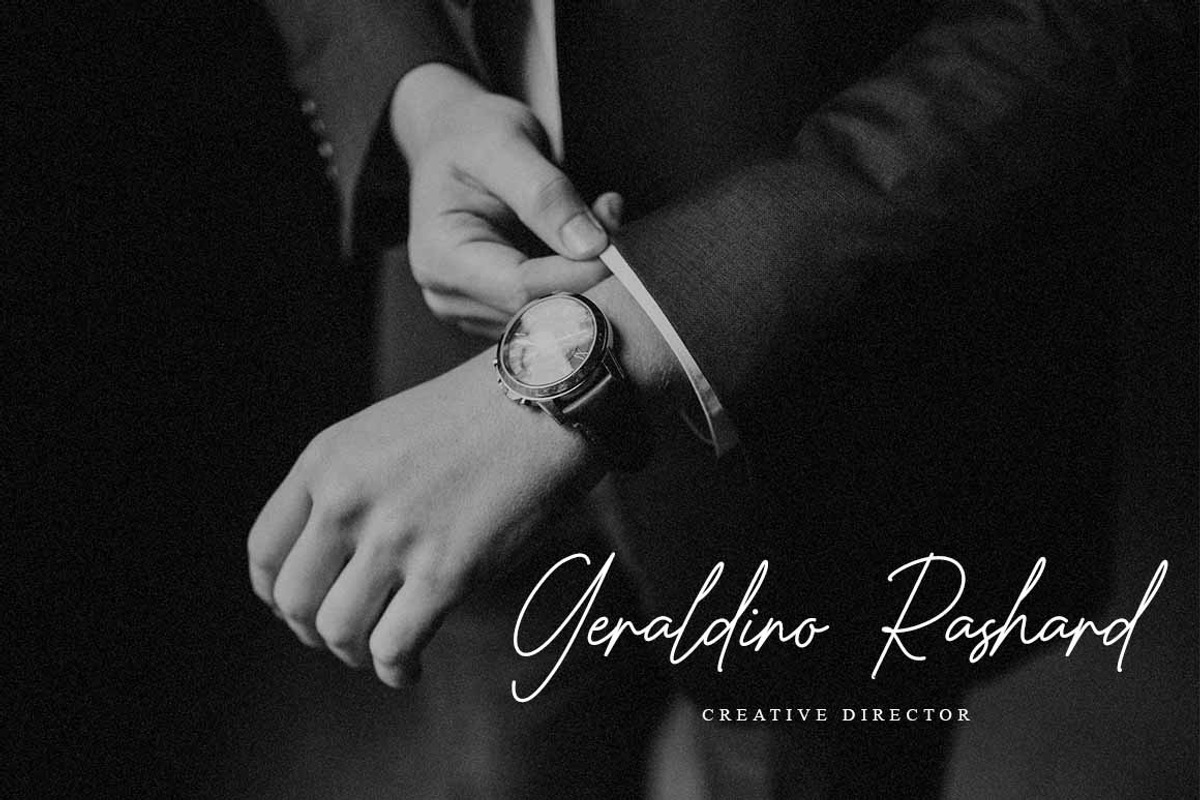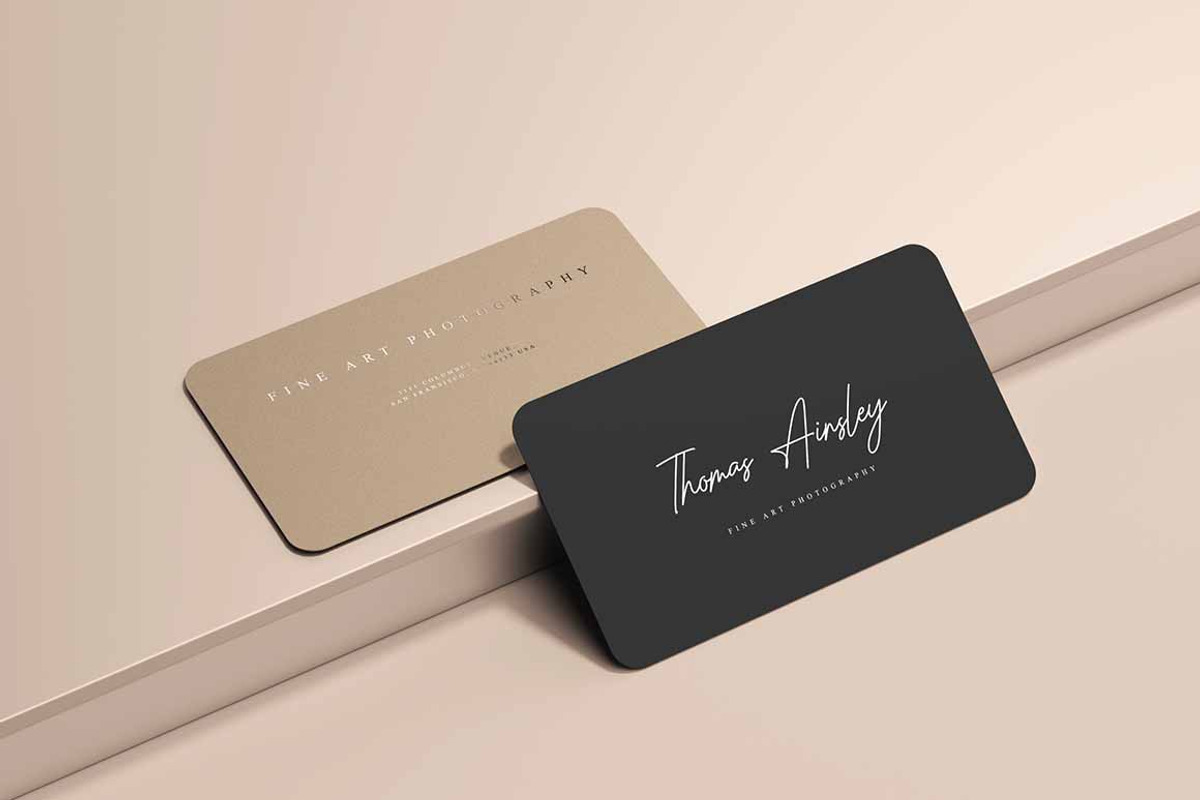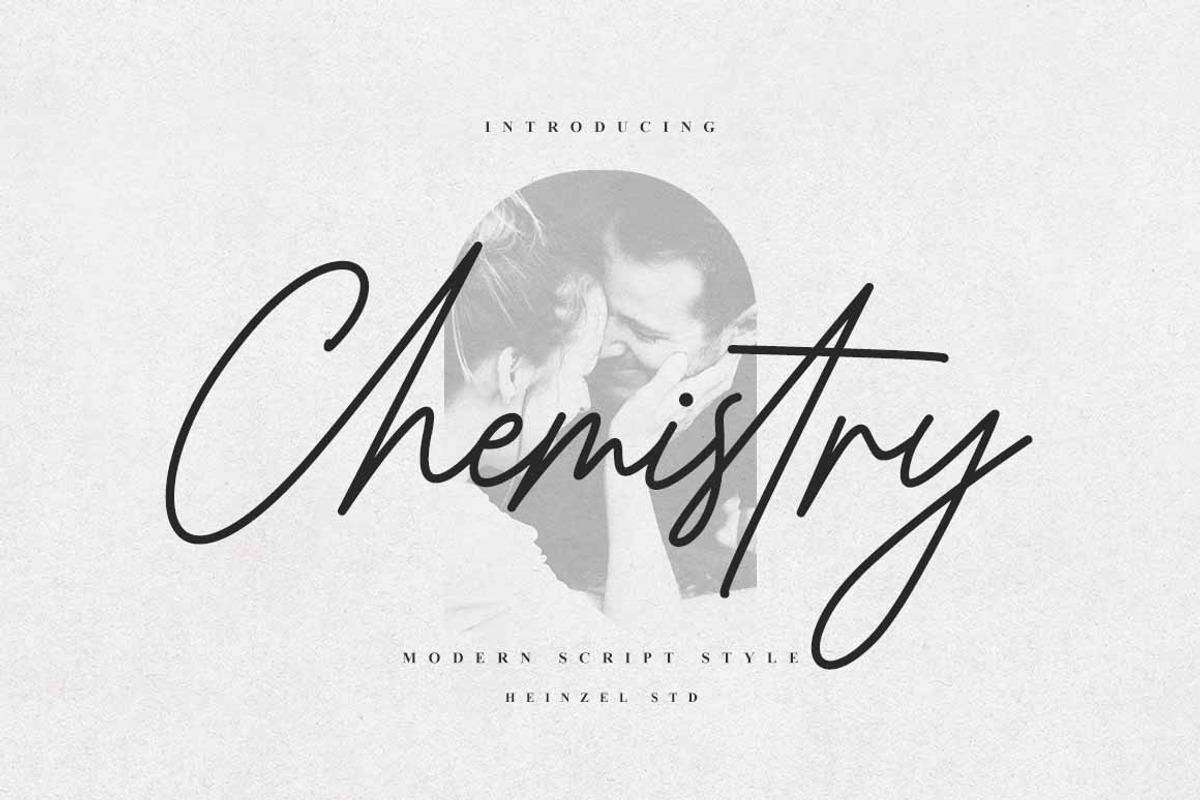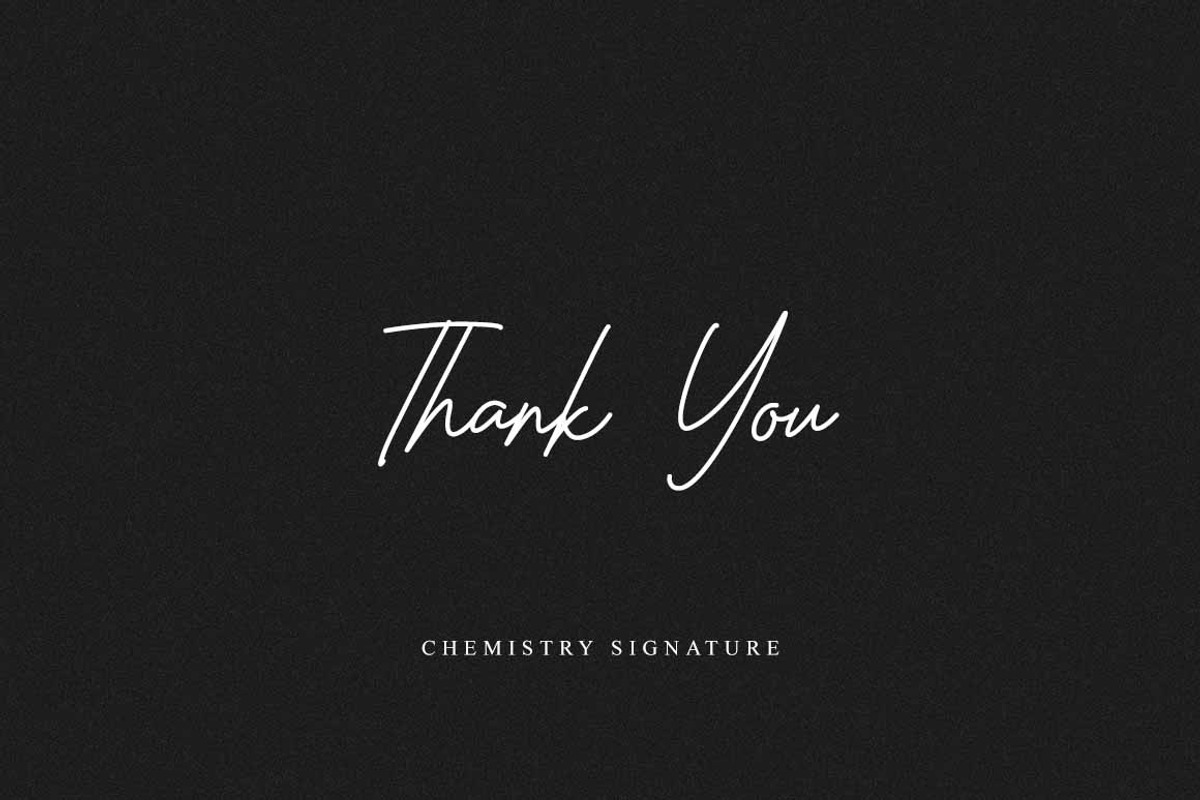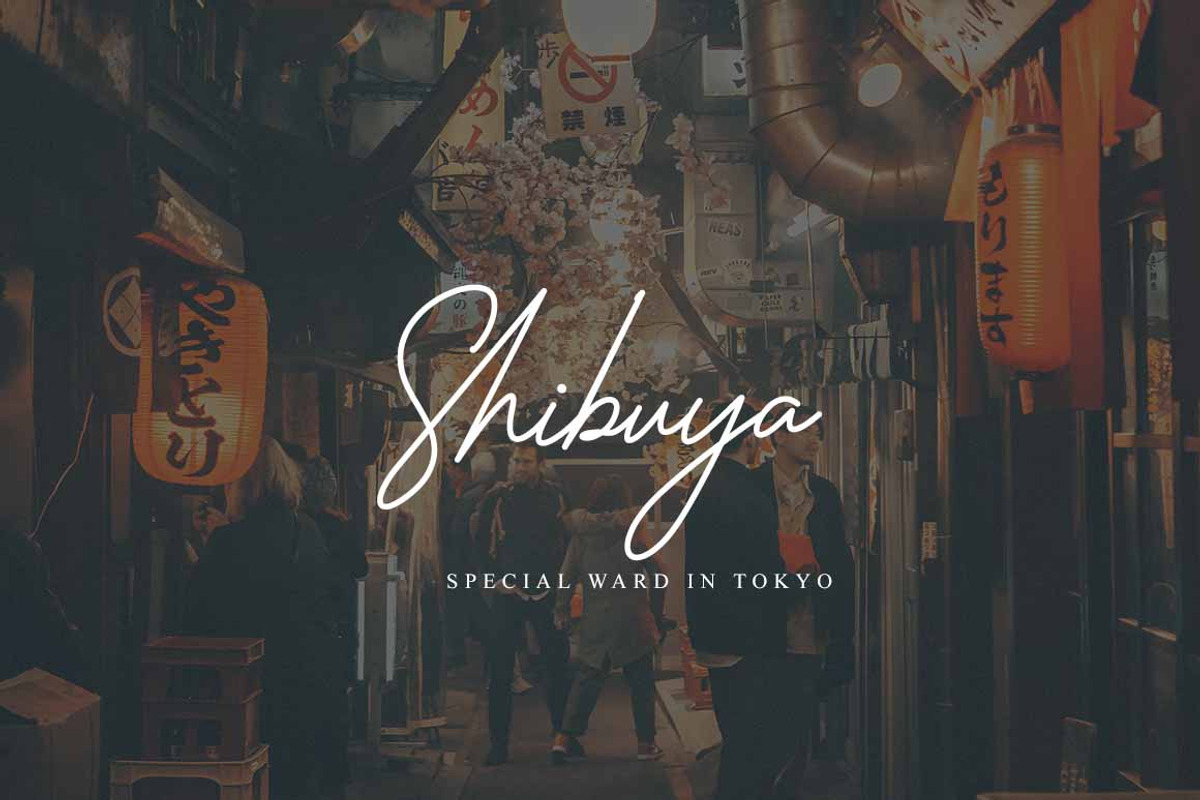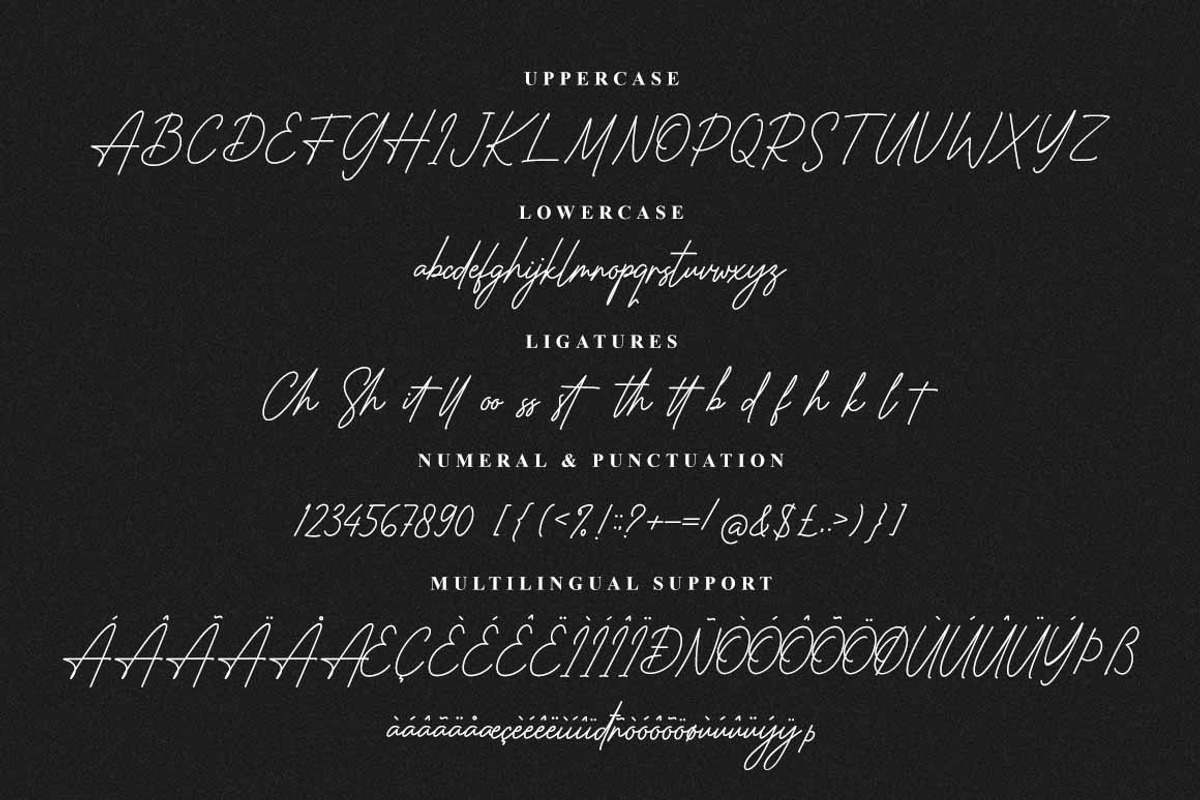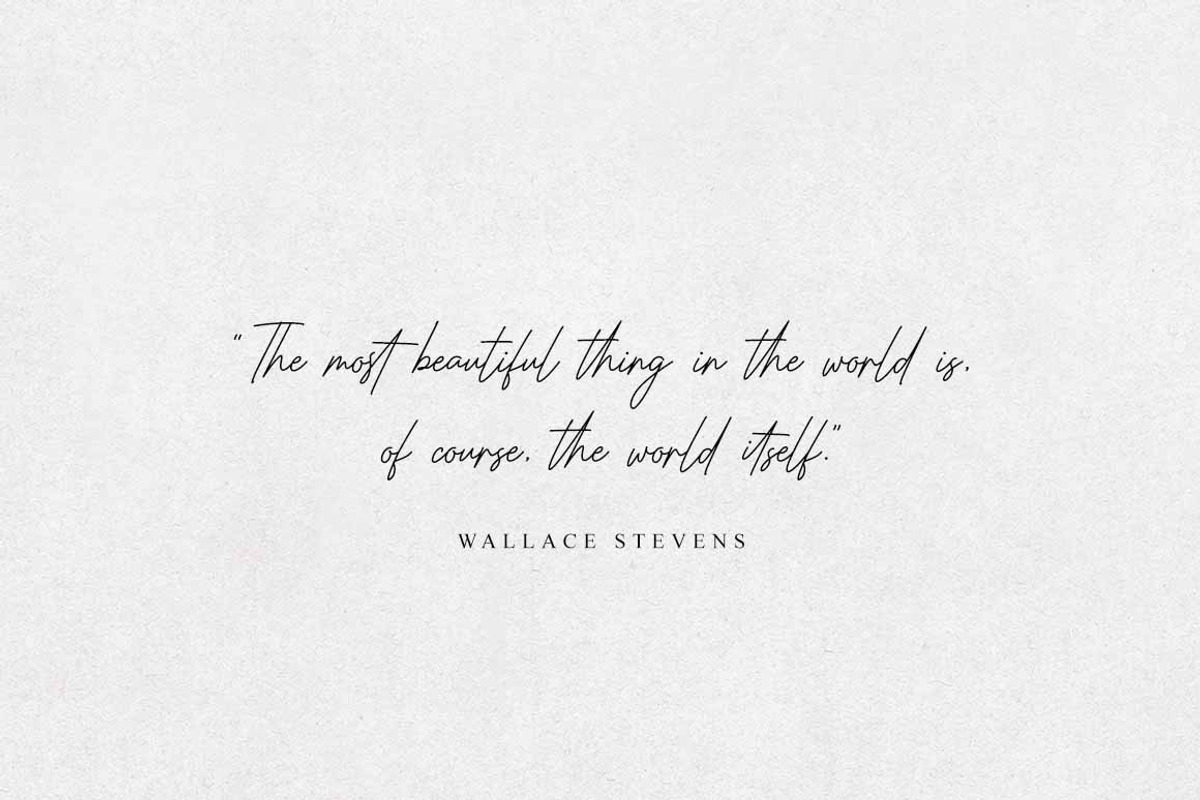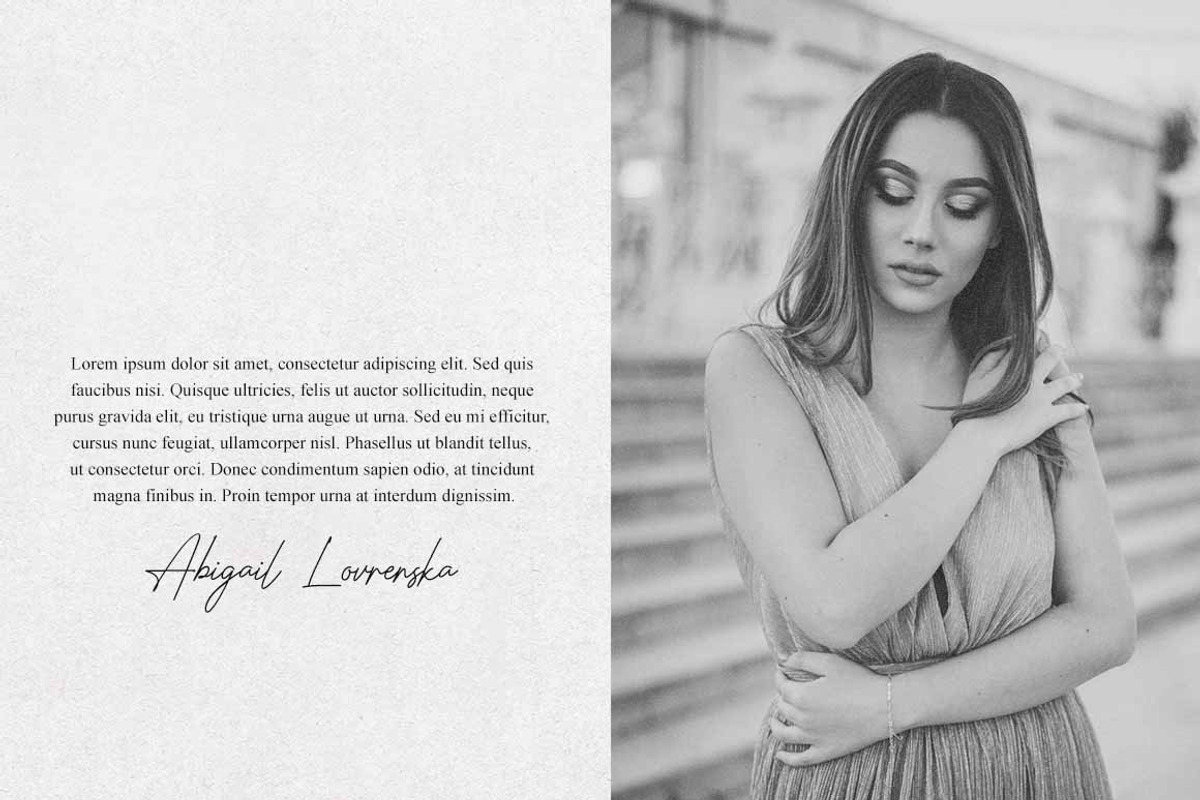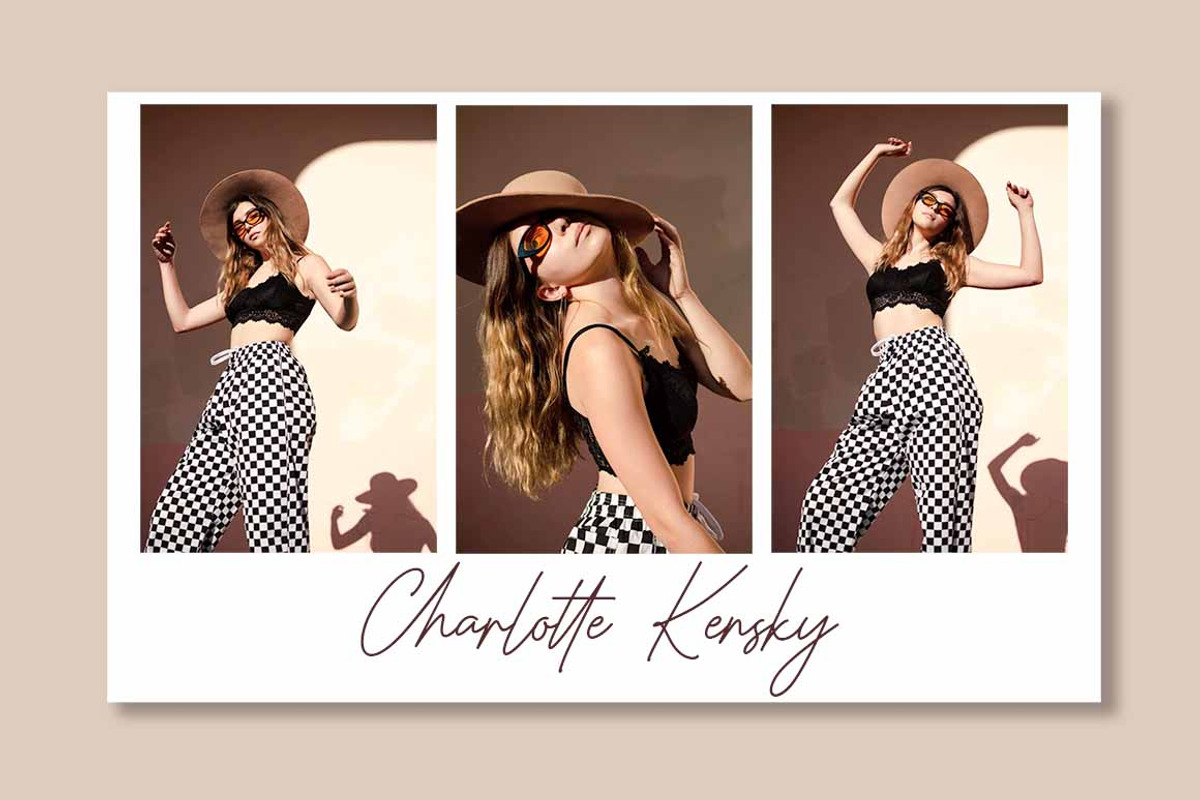
Chemistry Signature Font
Chemistry is a signature font, described by an elegant touch, perfect for your favorite projects. It looks stunning on wedding invitations, thank you cards, quotes, greeting cards, logos, business cards, and every other design which needs a handwritten touch. Fall in love with its incredibly distinct and timeless style and use it to create spectacular designs!
Chemistry Features :
- Uppercase, Lowercase, Numeral and Punctuation
- Ligatures and Alternates
- Multilingual Support : ÁÂÃÄÅÆÇÈÉÊËÌÍÎÏÐÑÒÓÔÕÖØÙÚÛÜÝÞß àáâãäåæçèéêëìíîïðñòóôõöøùúûüýÿþ
This character set supports the following 21 languages: Afrikaans, Basque, Breton, Catalan, Danish, Dutch, English, Finnish, French, Gaelic (Irish, Scots), German, Icelandic, Indonesian, Irish, Italian, Norwegian, Portuguese, Saami (Southern), Spanish, Swahili, Swedish.